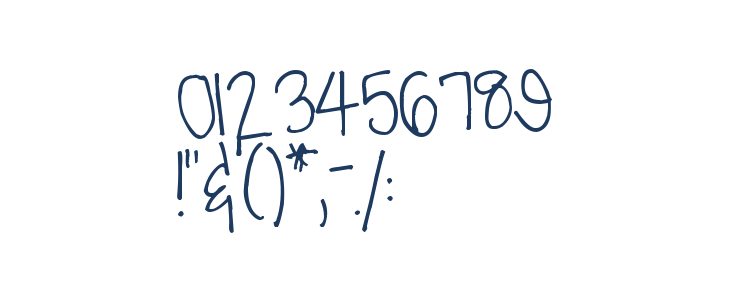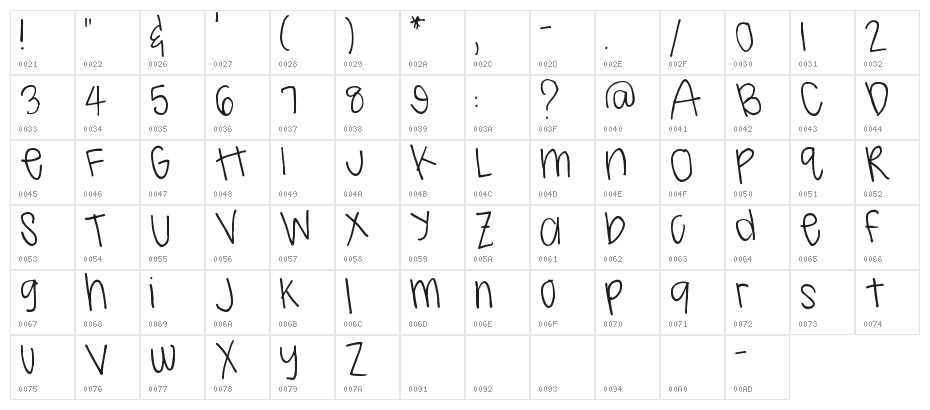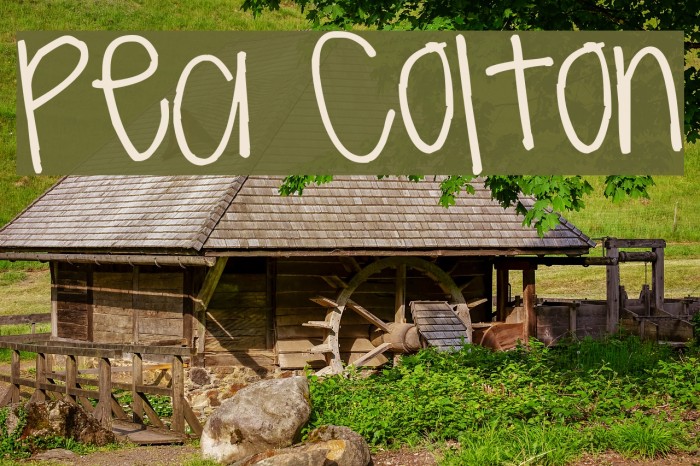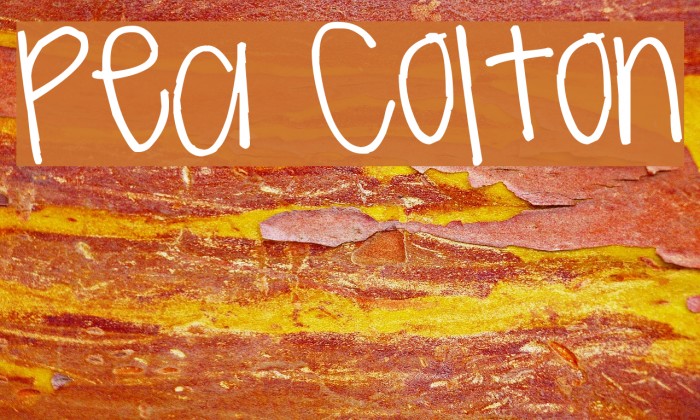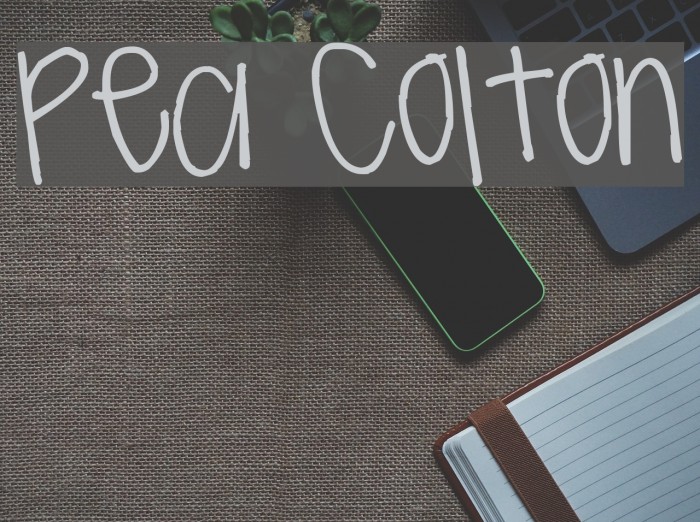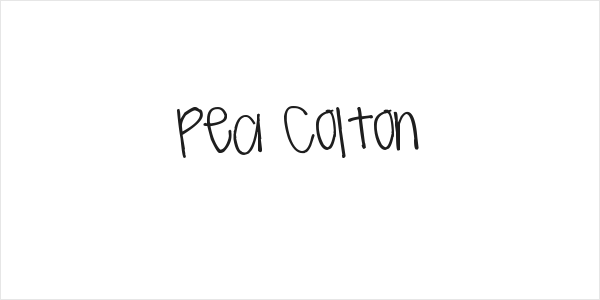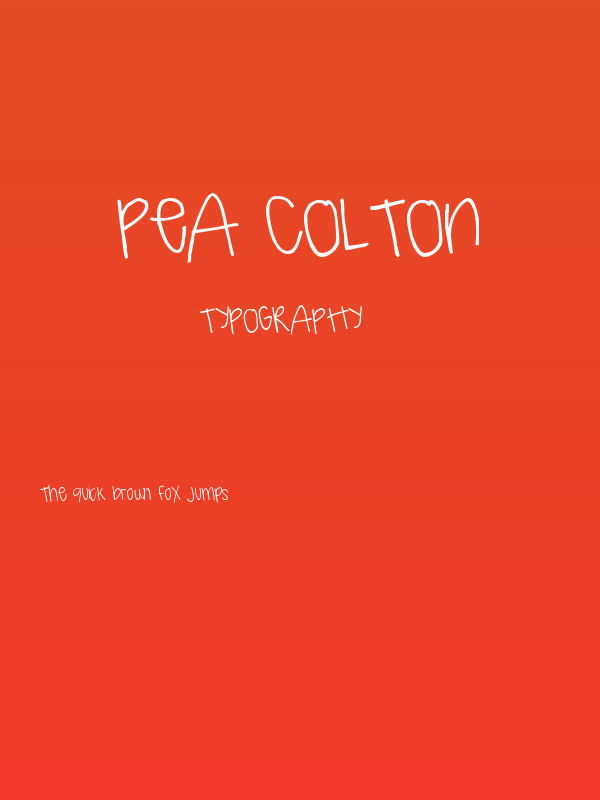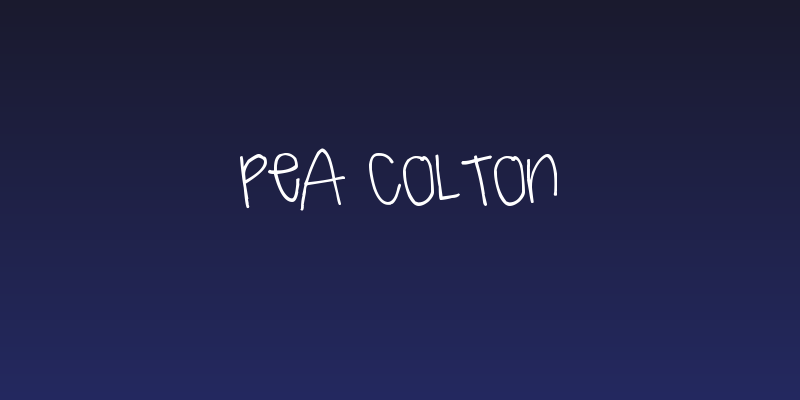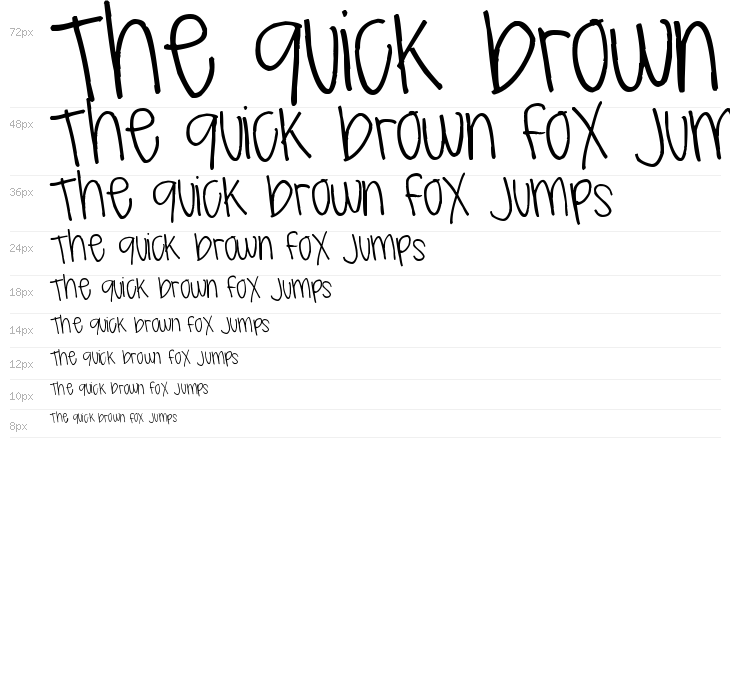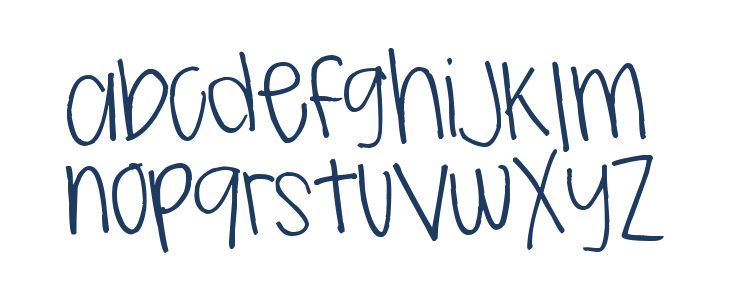
Pea Colton Font
| Stile generale | Casual, Playful |
| Caso d'uso | Greeting cards, Personal notes, Children's books |
| Progetti proposti | Ideal for greeting cards, personal notes, children's books, and playful branding. |